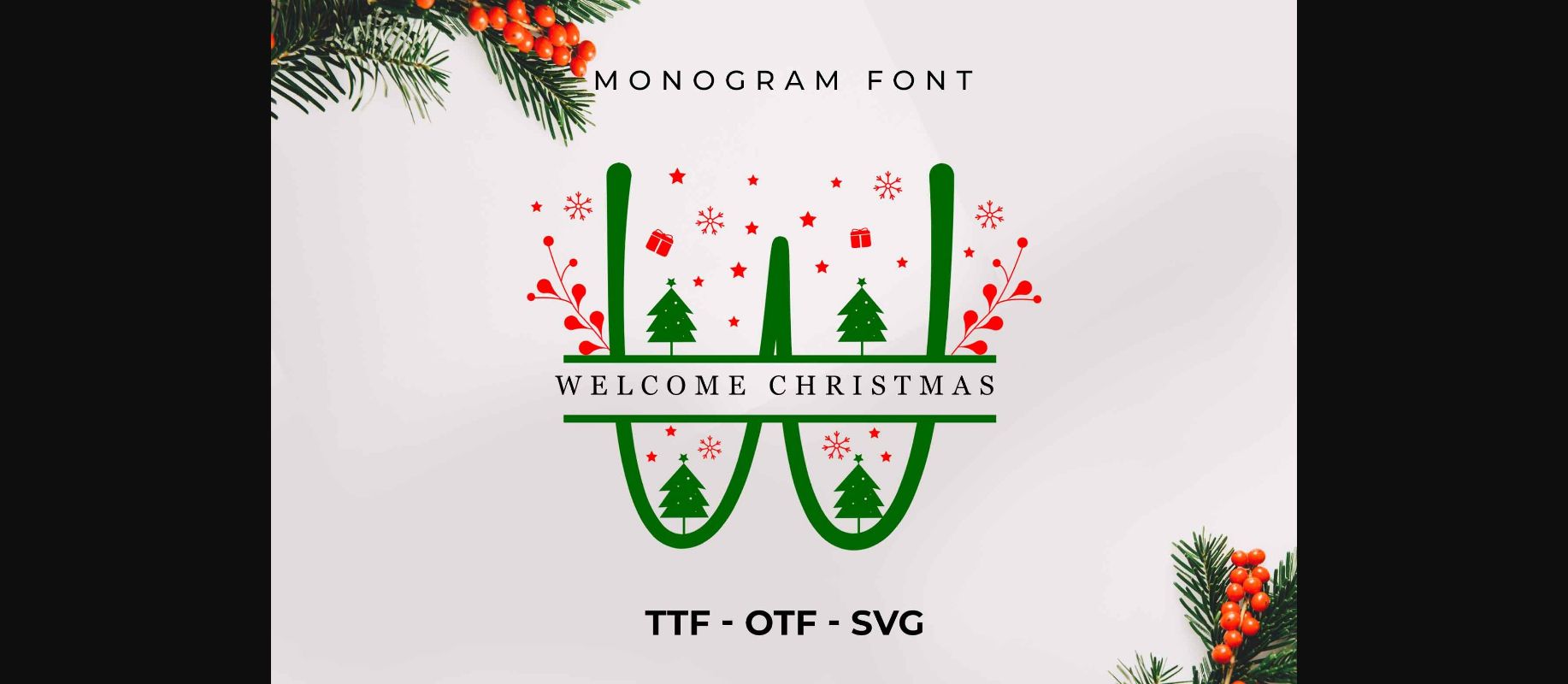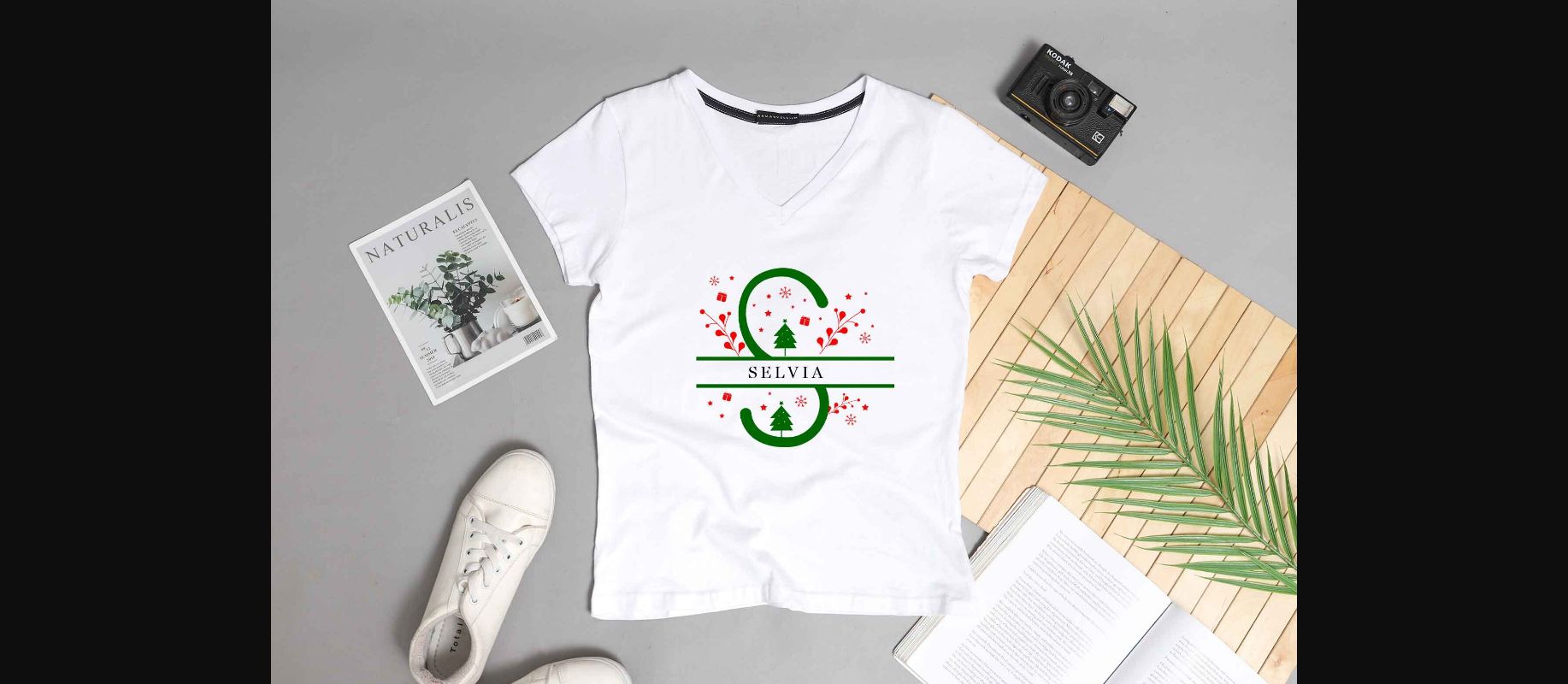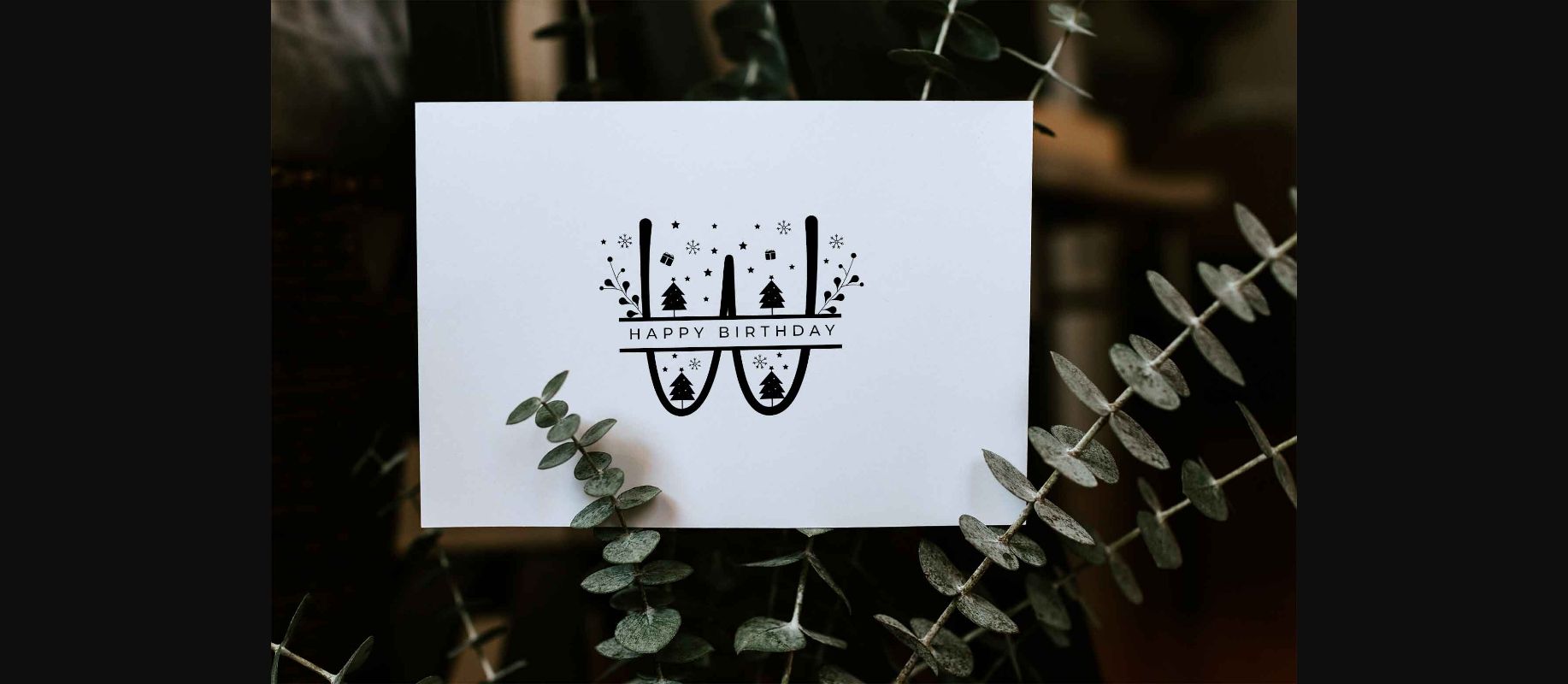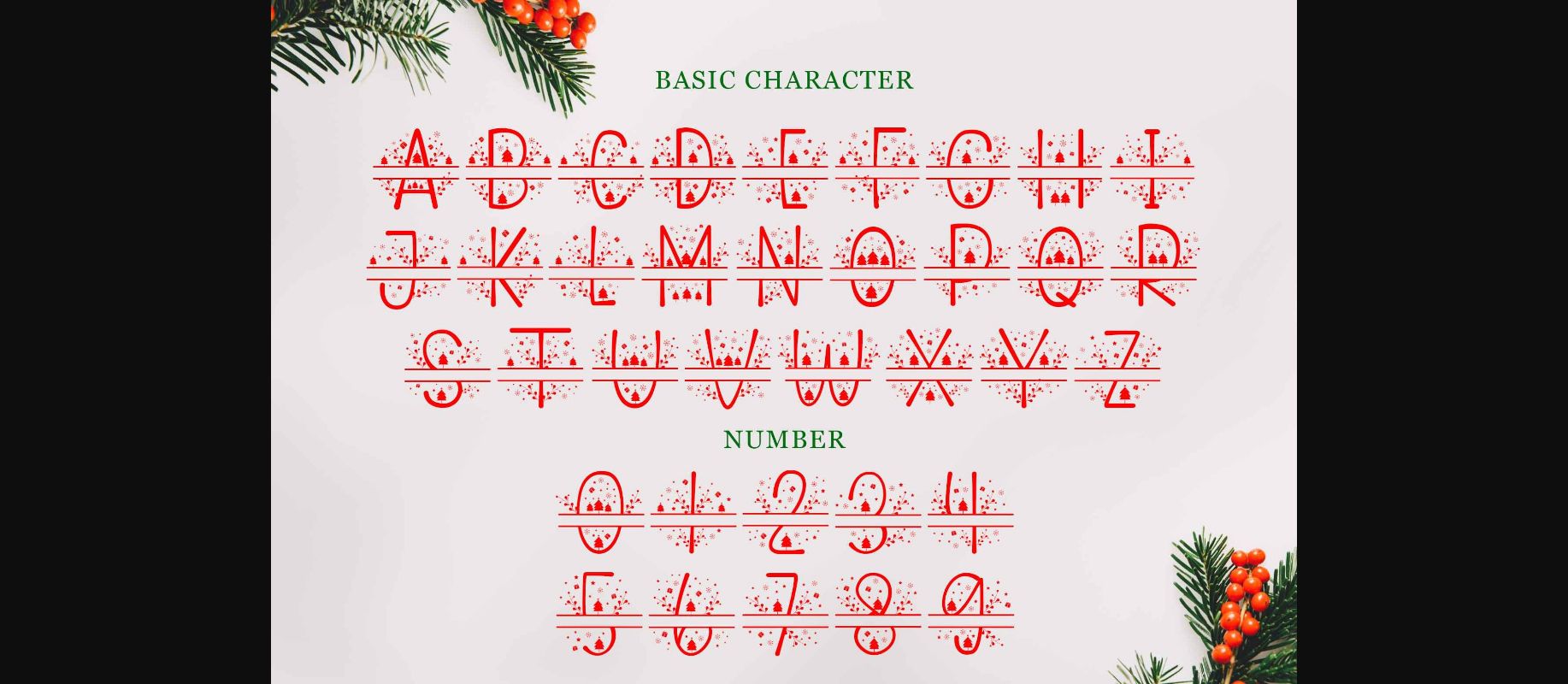
Welcome Christmas Monogram Font
Welcome Christmas Monogram is a busy and festive decorative font with Christmas knick-knacks. This font has the potential to become your favorite font at Christmas.
This font is suitable for greeting cards, crafts, mugs, t-shirts and much more.